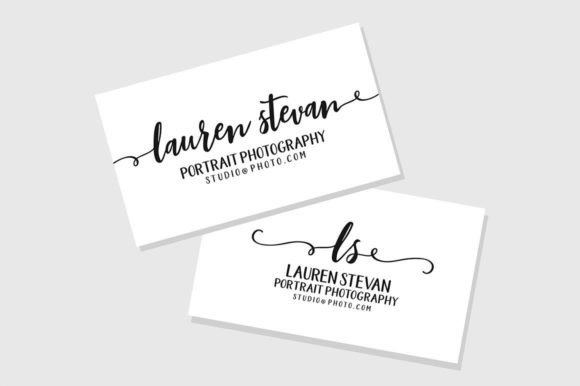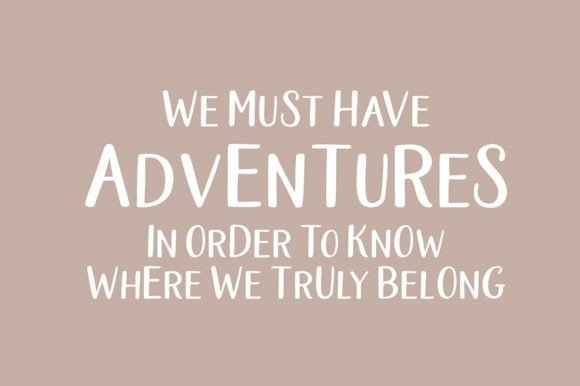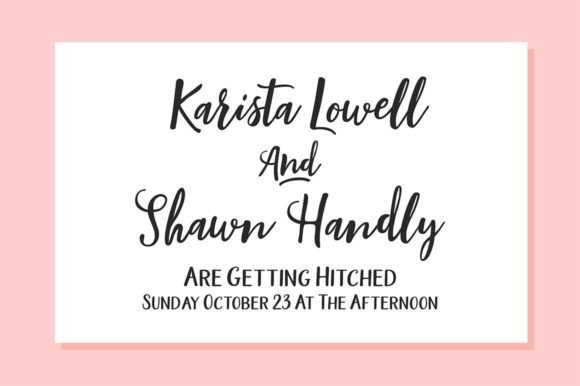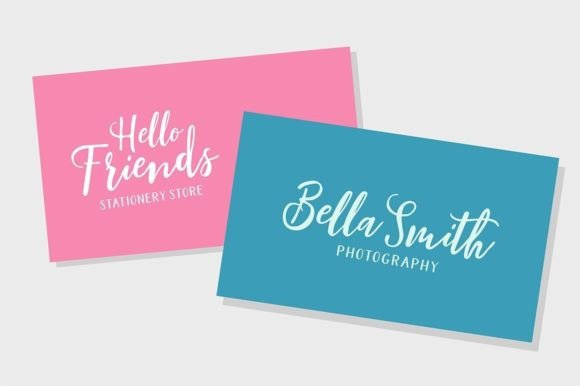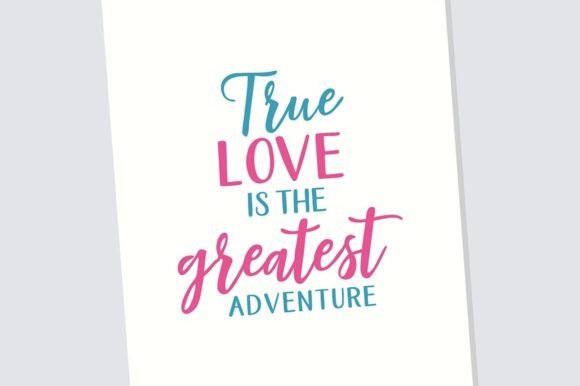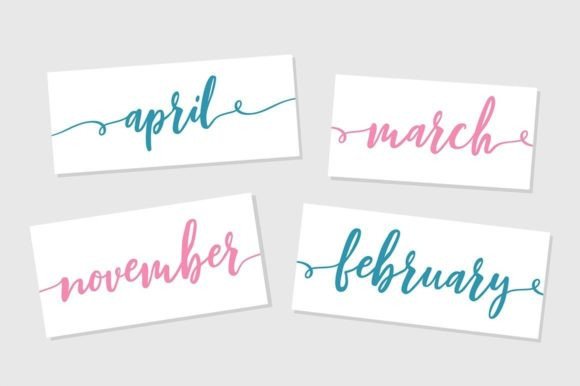
Unlock the Magic of Blishfully Font
Remember that moment when you’re brainstorming ideas for a new project and the perfect font just clicks? It’s like the stars align and everything falls into place. For designers, finding that perfect font can make all the difference in bringing their vision to life. Enter Blishfully Font, a delightful duo of handwritten and sans serif fonts that will add a touch of whimsy and authenticity to any design.
Blishfully Font is more than just a pretty face – it’s a versatile tool that lets you mix and match its two styles to create a look that’s uniquely yours. Whether you’re working on branding, logos, greeting cards, or wedding stationery, this font is the perfect companion to help you add a personal touch. With its PUA encoding, you’ll have access to all the glyphs and swashes you need to create truly special designs.
- Unique Characteristics: Blishfully Font features a modern, elegant design with distinctive letterforms, making it suitable for various design applications, including logos, branding, and editorial content
- Font Metrics: The font includes advanced OpenType features, such as ligatures, swashes, and contextual alternates, allowing for a high degree of customization and control
Blishfully Font Review
I recently had the chance to work with the Blishfully font, and I must say it’s a unique and intriguing typeface. Here are my thoughts on what works well and what doesn’t.
- The Blishfully font has a distinct, hand-drawn feel that adds a touch of personality to any design.
- The font is highly customizable, with a range of weights and styles that can be easily mixed and matched to create a cohesive look.
- The Blishfully font is also highly legible, making it a great choice for body text and other large blocks of content.
- The Blishfully font may not be the best choice for small text or fine typography, as the characters can become somewhat distorted at small sizes.
- The font’s unique feel can also make it difficult to pair with other typefaces, as it may clash with more traditional or serif fonts.
The Blishfully font is a great choice for designers looking to add a touch of whimsy and personality to their designs. While it may have some limitations, its unique feel and high level of customizability make it a valuable addition to any designer’s toolkit.
Tips for Getting the Most Out of Blishfully Font
For the best results, use Blishfully Font in combination with a bold or italic style to add emphasis to your text. You can also experiment with different font sizes and colors to create a visually appealing design.
Blishfully Font is ideal for creating eye-catching headlines, titles, and logos. It’s also suitable for use in branding materials, such as business cards and brochures.
Alternatives to Blishfully Font for Designers
Lobster Font is a popular script font that is perfect for creating elegant and sophisticated designs. It has a similar feel to Blishfully Font but with a more refined and cursive look. Use Lobster Font for titles, headings, and other text elements where you want to add a touch of luxury and sophistication.
Compared to Blishfully Font, Lobster Font has a more polished and refined look, making it suitable for high-end designs and luxury brands.
Great Vibes Font is a modern script font that is ideal for creating fun and playful designs. It has a similar laid-back feel to Blishfully Font but with a more energetic and dynamic look. Use Great Vibes Font for titles, headings, and other text elements where you want to add a sense of excitement and enthusiasm.
Compared to Blishfully Font, Great Vibes Font has a more energetic and playful feel, making it suitable for young and adventurous brands.
Playfair Display Font is a luxurious script font that is perfect for creating elegant and sophisticated designs. It has a similar refined and cursive look to Blishfully Font but with a more classic and vintage feel. Use Playfair Display Font for titles, headings, and other text elements where you want to add a touch of sophistication and elegance.
Q: Can I customize the Blishfully Font to fit my design needs?
Yes, the Blishfully Font is highly customizable. You can adjust font sizes, colors, and styles using the font’s built-in features, such as OpenType font features (e.g., ligatures, swashes, and ornaments). Additionally, you can use font editing software, like FontForge or FontLab, to further customize the font to suit your design requirements.